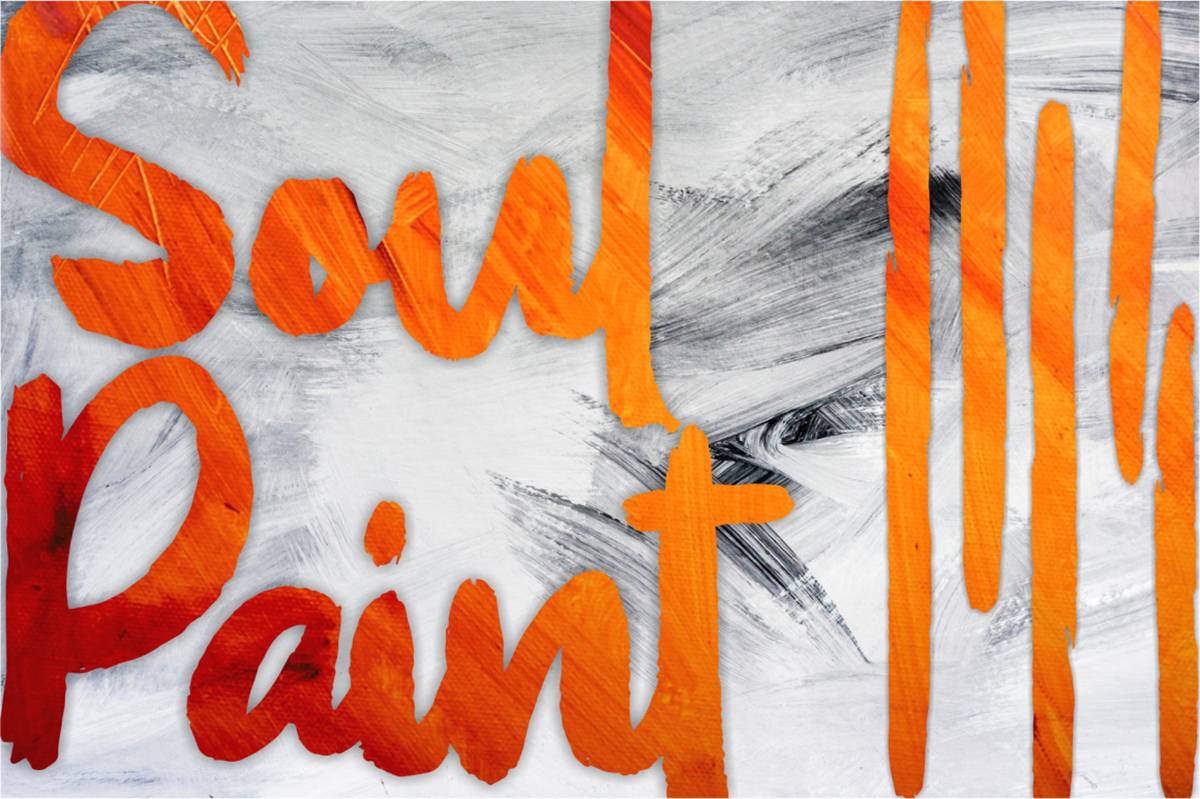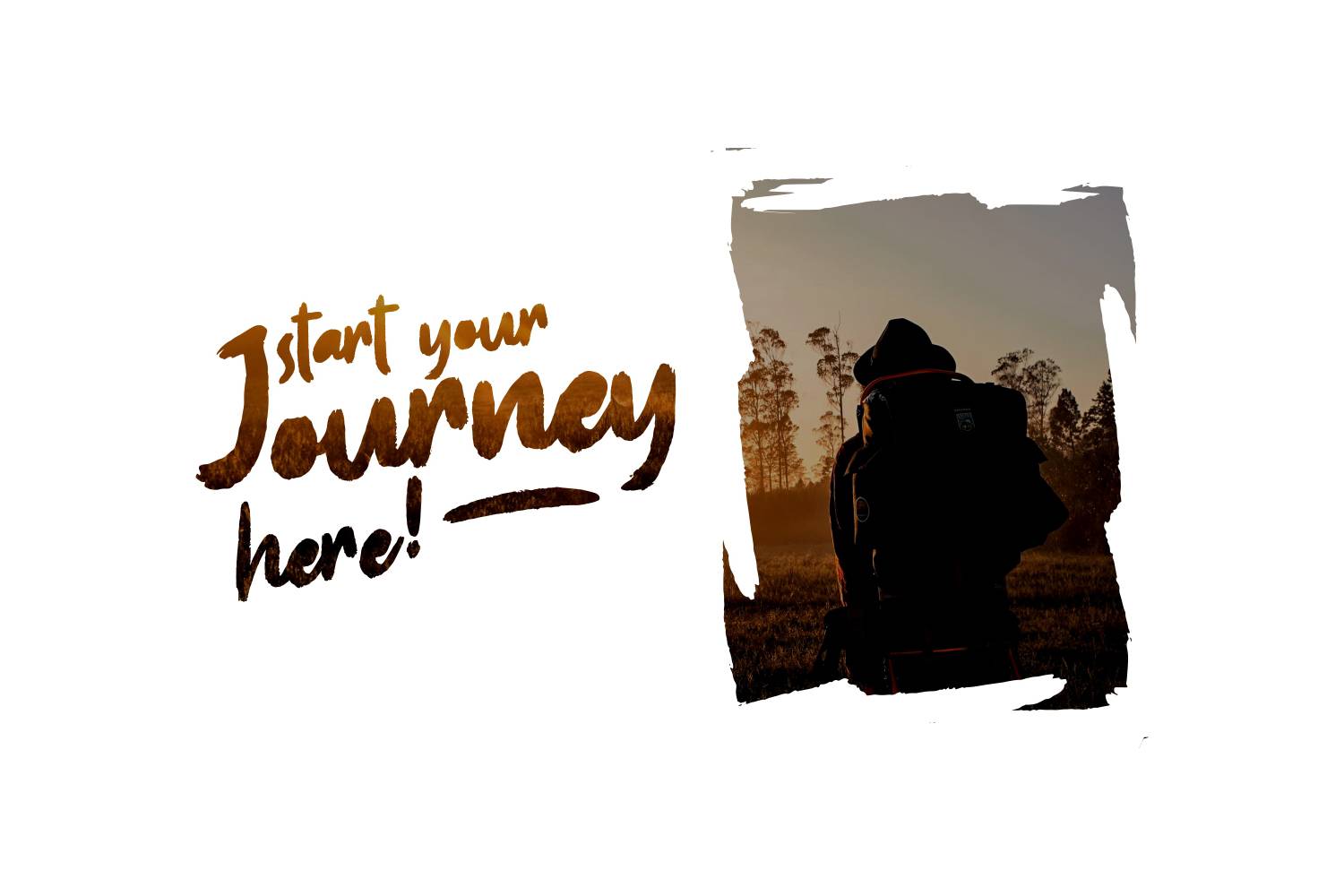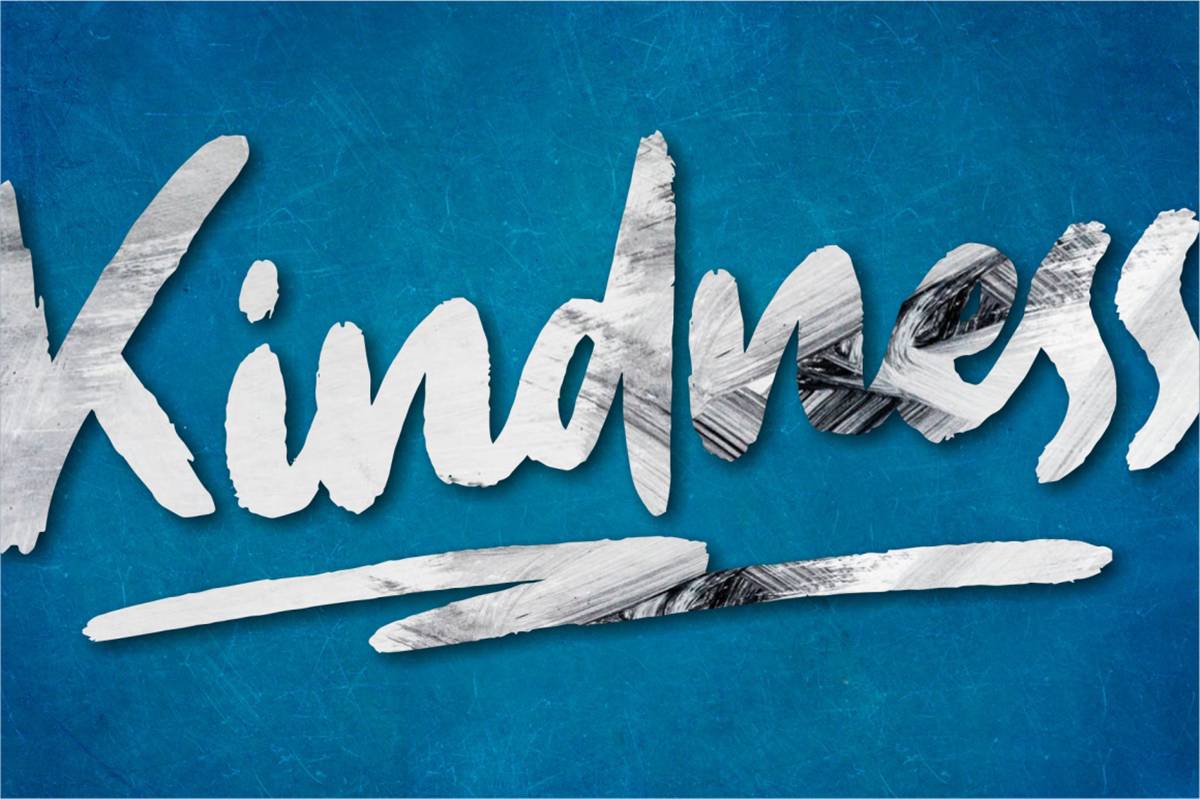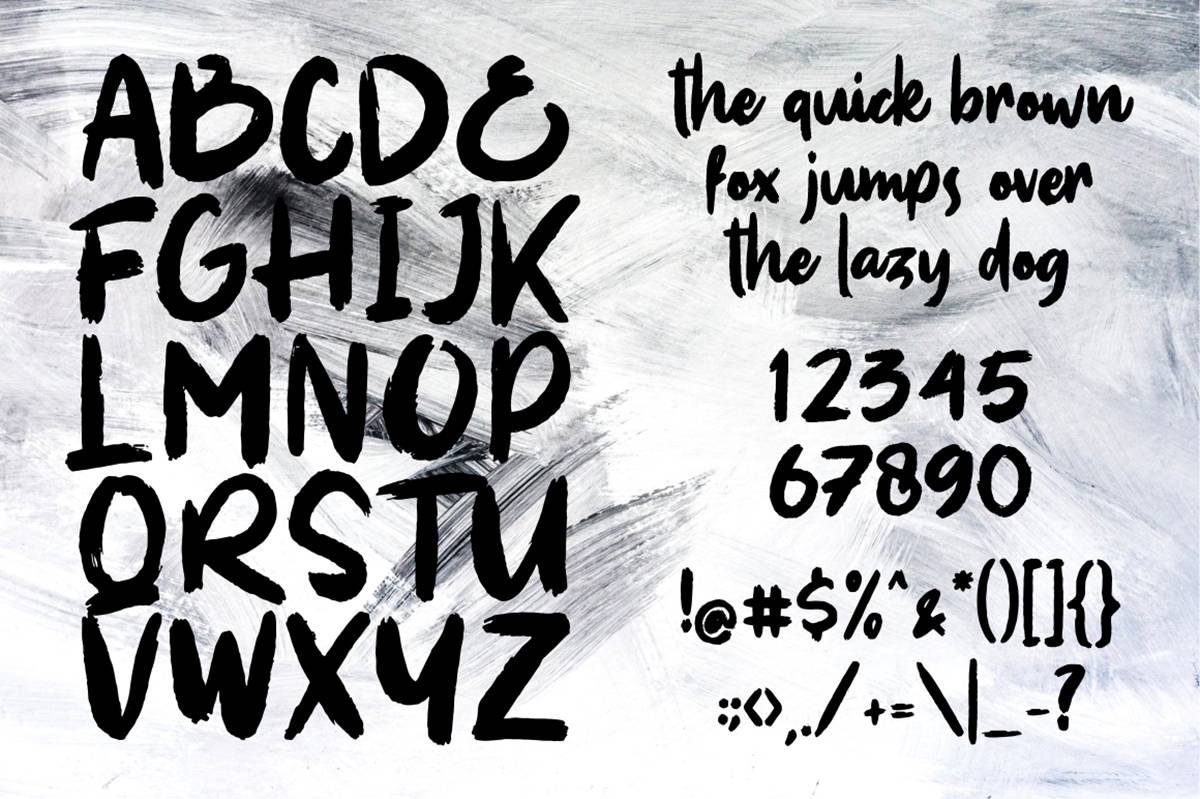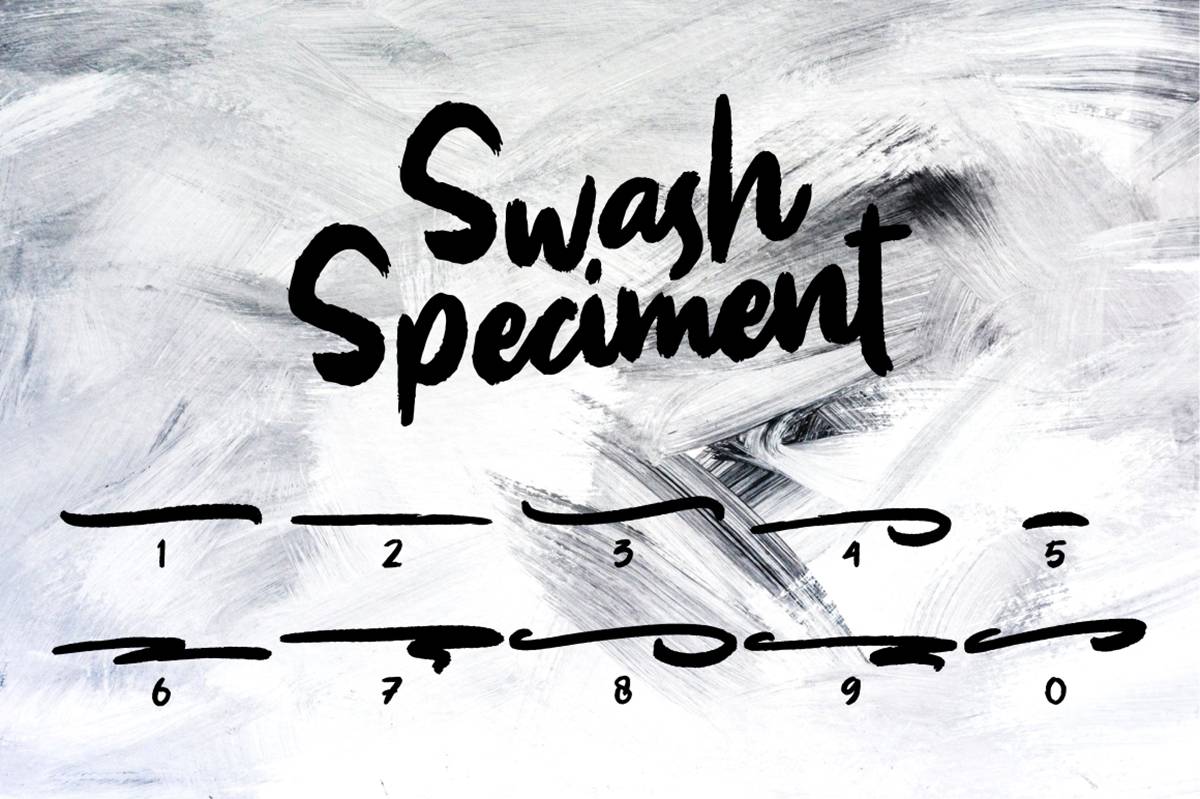
Soul Paint is a bold, hand-painted brush script font that features a lively and textured style, giving it a raw, artistic feel. Its irregular strokes and organic shapes make it perfect for creative, expressive branding, posters, and casual, eye-catching headlines that need a personal touch. This font works well when you want to add a sense of energy and authenticity to your design.
Soul Paint Font
About Soul Paint Font